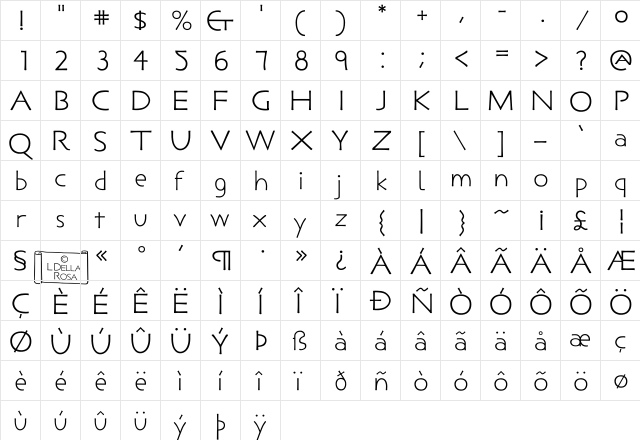
Sigismundus Regular
Design Context for Sigismundus Typeface
Sigismundus is a composed and adaptable typeface that performs quietly and consistently across a wide range of design contexts.